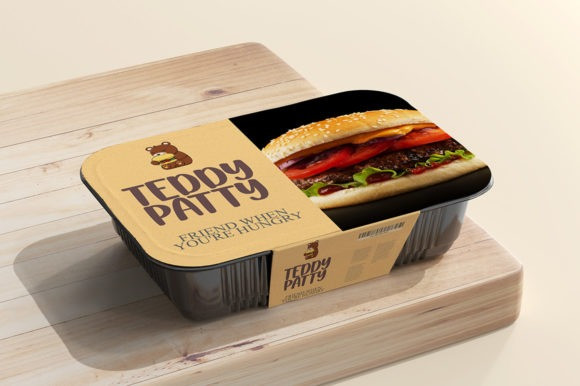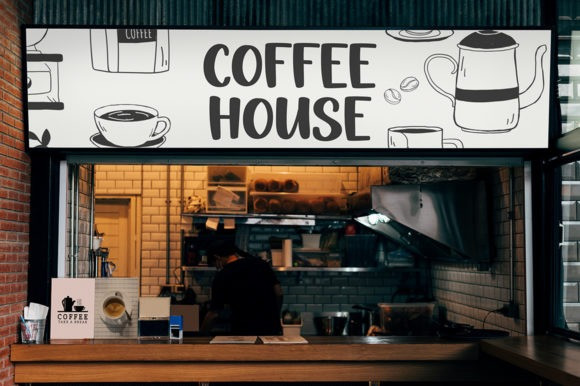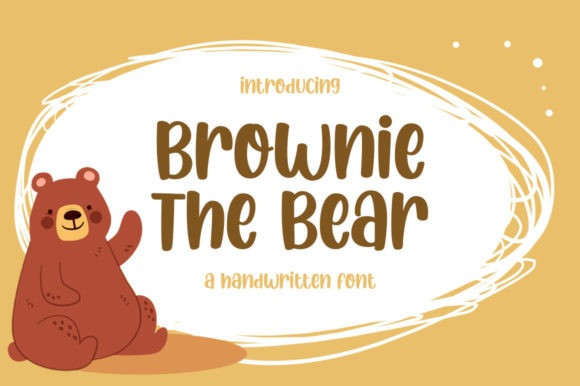
Brownie The Bear Font
Brownie The Bear Display Font is a cute display font perfect for all the chalkboard quotes and teaching materials you wish to create! Its authentic look will add a personal and realistic feel to your designs.